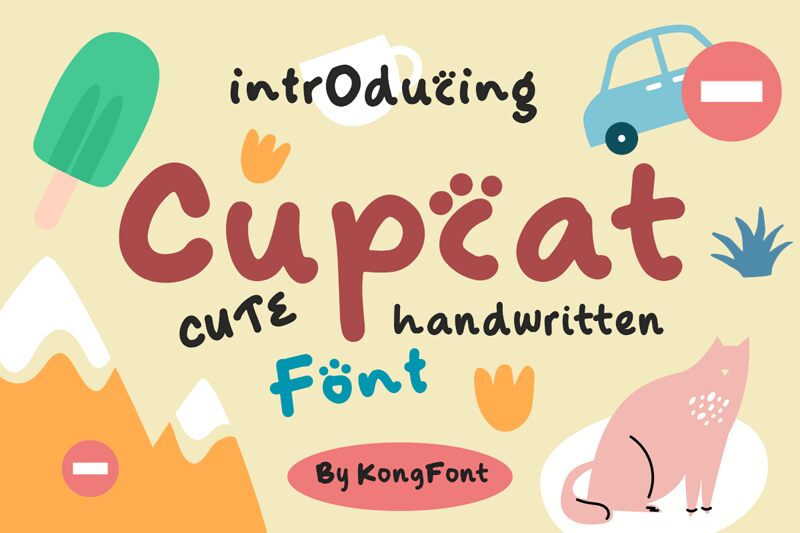
Cupcat font by Kong Font is a whimsical cartoon font with playful rounded shapes and a casual, friendly feel. With a modern and youthful vibe, the set manages to appear approachable with an organic decorative touch that makes the writing flow. If you’re in search of a typeface to bring cuteness into your artwork, Cupcat would certainly make a great choice.
Cupcat font’s informality makes it easily integrate into creative and more experimental projects. Use this font in the design of social media posts, stickers, emojis, logos, signs, packaging, advertisements, t-shirts, magazines, or apparel items. Other ideas include stationery products, book covers, greeting cards, and applications and games.